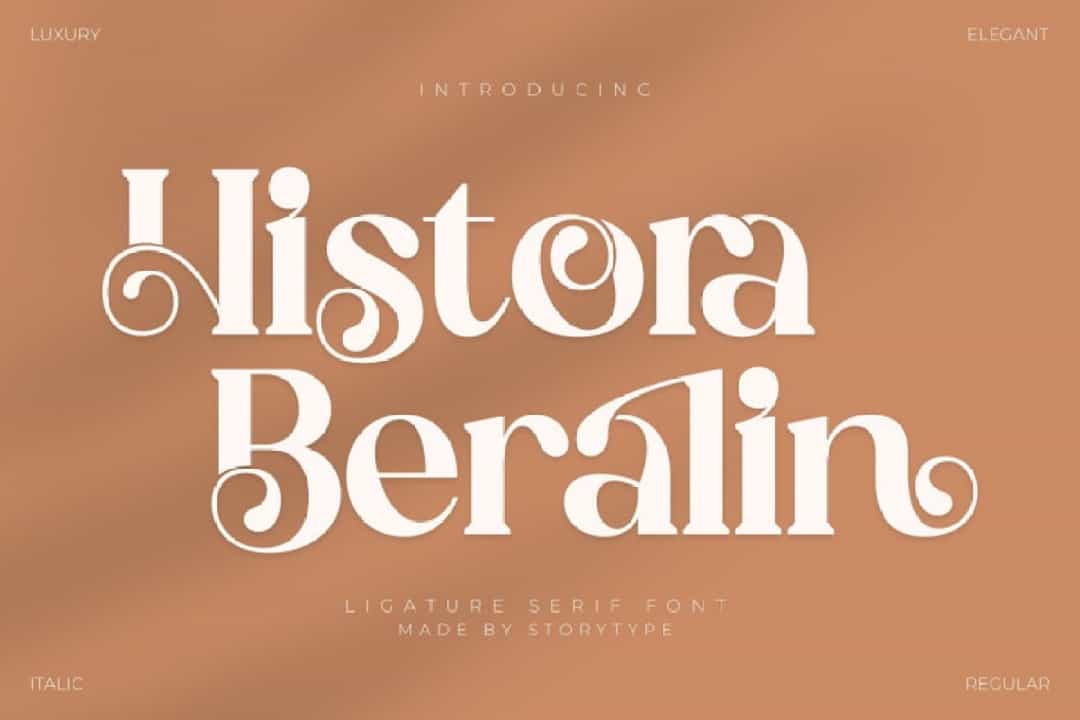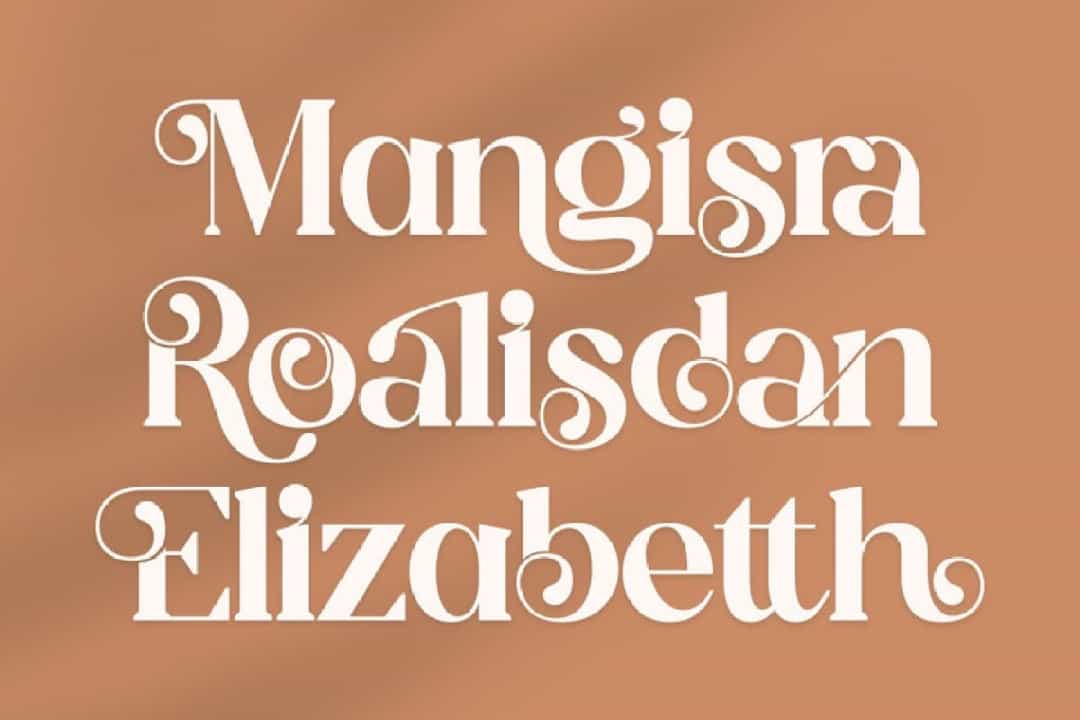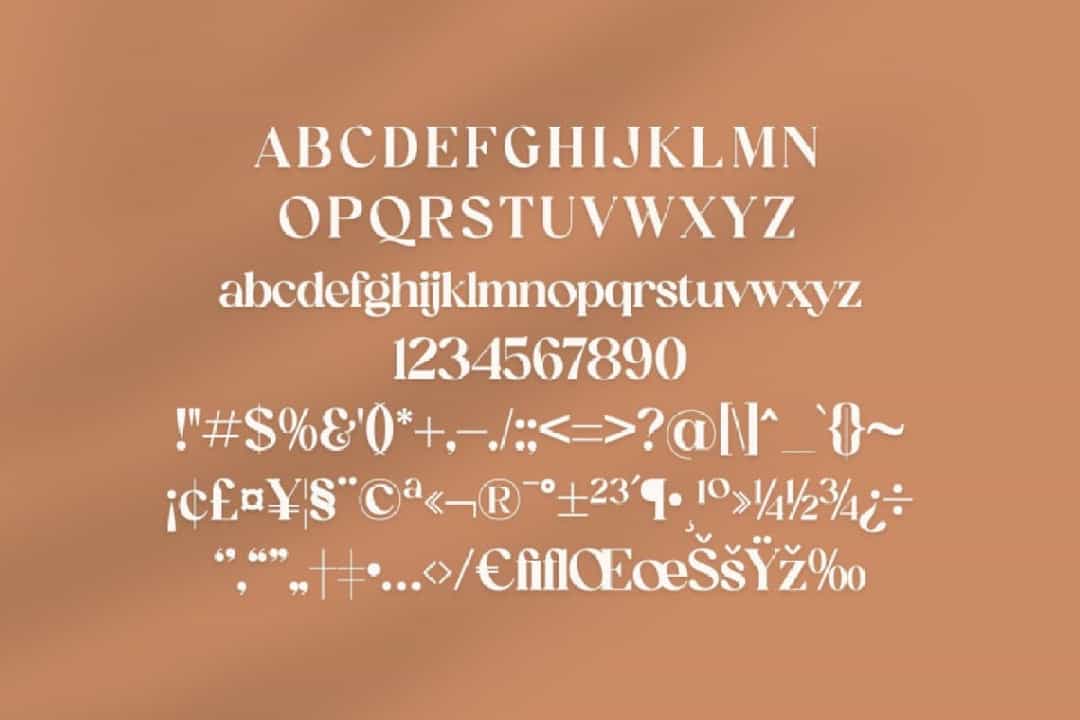
Histora Beralin Font was designed by Storytype as a modern and timeless serif typeface with its own distinct style and contemporary aesthetic. This font can be used to craft luxurious and classy logos, movie or book name designs, fashion brand clothing designs, magazine letters, quotes and so much more.